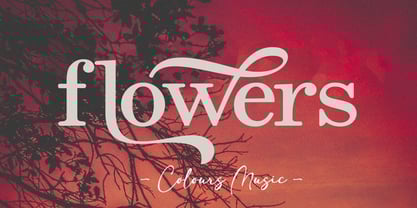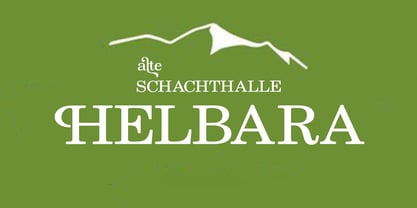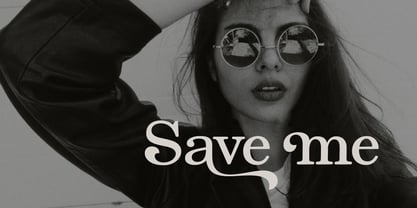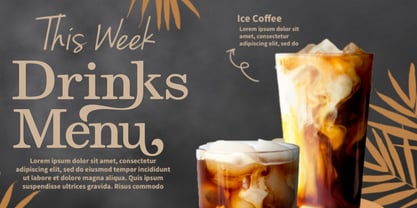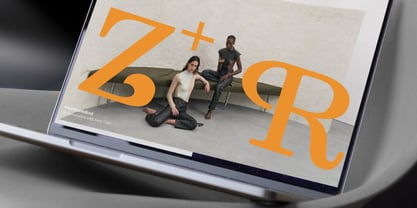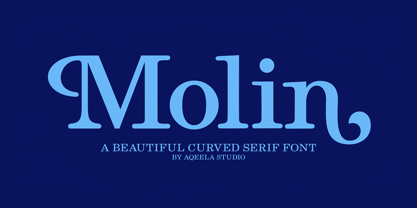
Molin
by Aqeela Studio
The Molin Font Family was designed by Muhammad Nasir and published by Aqeela Studio. Molin contains 1 styles. More about this family
Molin is a beautiful serif font with an incredibly authentic feel. Get inspired by its bold charm, and turn any design idea into a true standout!
Designers: Muhammad Nasir
Foundry: Aqeela Studio